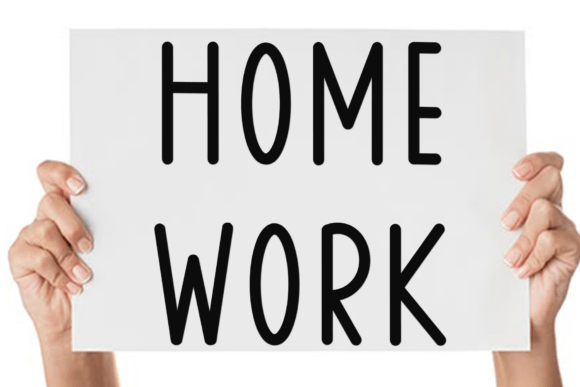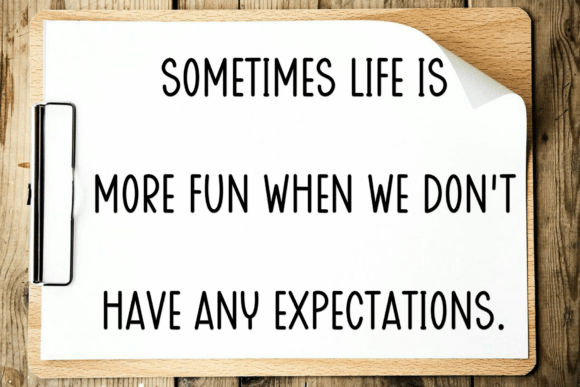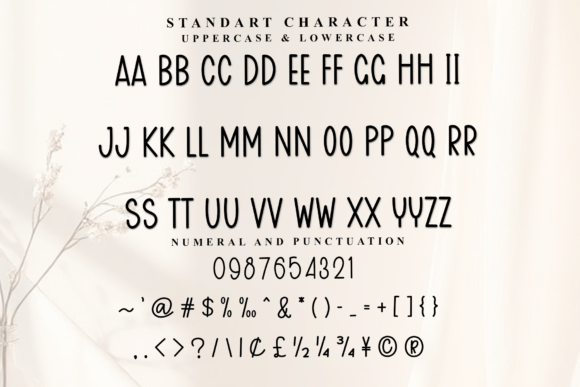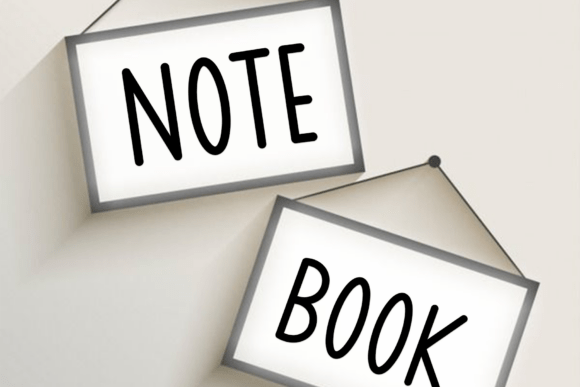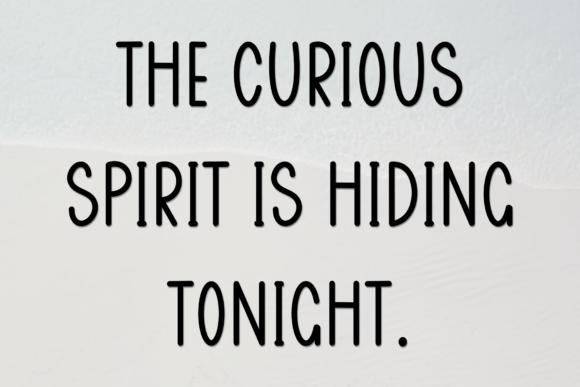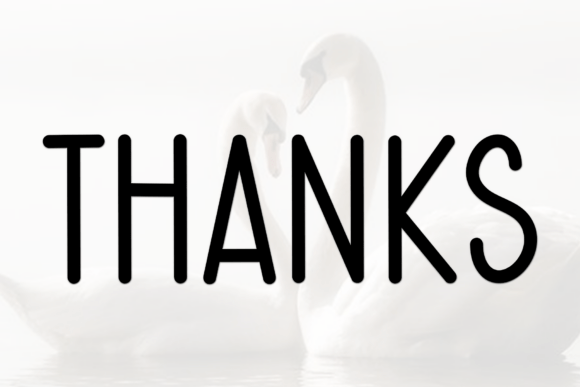
The Power of Aesthetic Minimal Font: Elevate Your Designs with Elegance
Have you ever been in the middle of a design project, and suddenly, you’re stuck on finding the perfect font? I recall a recent experience where I was working on a client’s branding project, and I just couldn’t find a font that resonated with their vision. That’s when I stumbled upon the Aesthetic Minimal Font, and it completely transformed my design. In this article, we’ll explore the beauty of this font, its features, and how to make the most of it in various design applications.
- ✨ Unique and Soft Touch: The Aesthetic Minimal Font boasts a distinctive, soft touch that sets it apart from other fonts.
- ✅ Versatility: Its natural style makes it perfect for a wide range of design projects, from crafts to creative works.
- ✅ Variety of Characters: The font comes with a range of characters, making it ideal for designs that require a bit of flair.
While the Aesthetic Minimal Font is an excellent choice for many design projects, there are a few things to consider:
- ⚠️ Legibility at Small Sizes: Like many elegant fonts, it may not be as legible at very small sizes. It’s best used at larger sizes where its unique features can shine.
- ⚠️ Overuse of Stylistic Alternates: With great power comes great responsibility! Be mindful not to overuse the stylistic alternates, as it can make your design look cluttered.
The Designer Inspiration Behind Aesthetic Minimal Font
The Aesthetic Minimal Font was created with the intention of providing a unique and elegant font for designers. While the exact inspiration and designer behind this font might not be publicly well-documented, it’s clear that the goal was to craft a font that is both beautiful and functional.
| What makes Aesthetic Minimal Font unique? | The Aesthetic Minimal Font stands out due to its soft, unique touch and distinctive strokes, making it perfect for designs that require a bit of elegance. |
| Is Aesthetic Minimal Font suitable for body text? | While it’s primarily designed for headings and titles, it can be used for body text in certain contexts. However, its legibility at smaller sizes should be considered. |
| Does Aesthetic Minimal Font support OpenType features? | Yes, the font supports OpenType features, including ligatures, stylistic alternates, and glyphs, allowing for a high degree of customization. |
In conclusion, the Aesthetic Minimal Font is a beautiful and versatile font that can elevate your designs with its unique and elegant feel. With its compatibility across various platforms and applications, it’s an excellent choice for designers, crafters, and creative hobbyists alike.